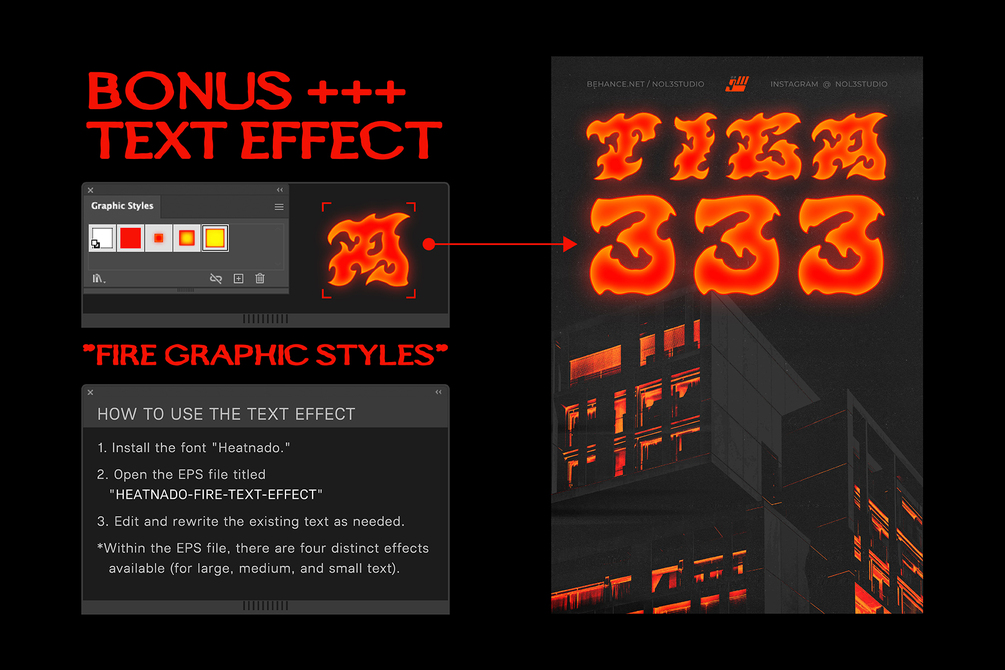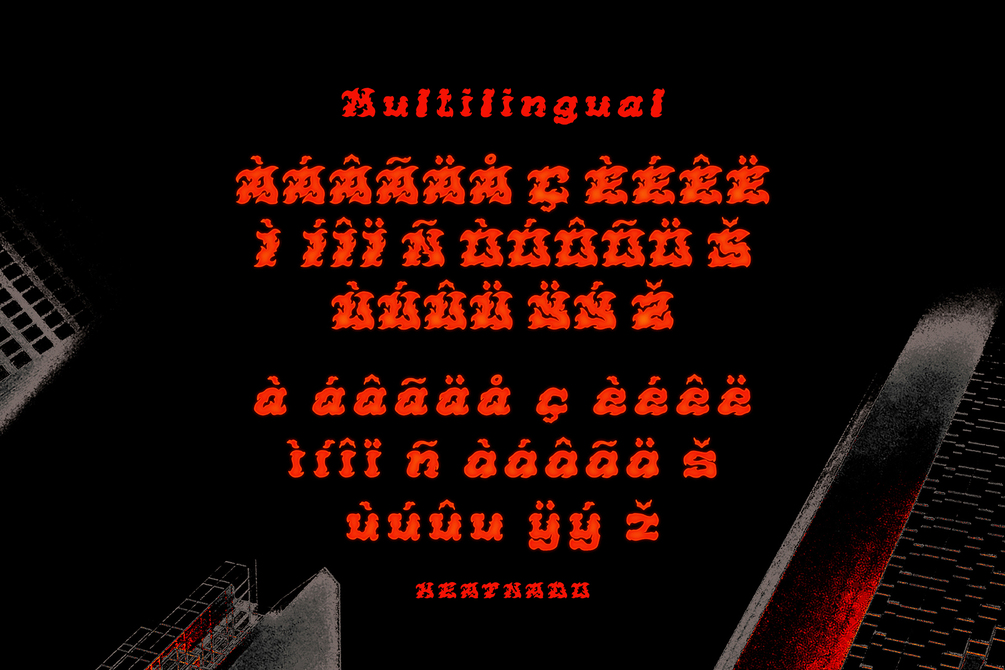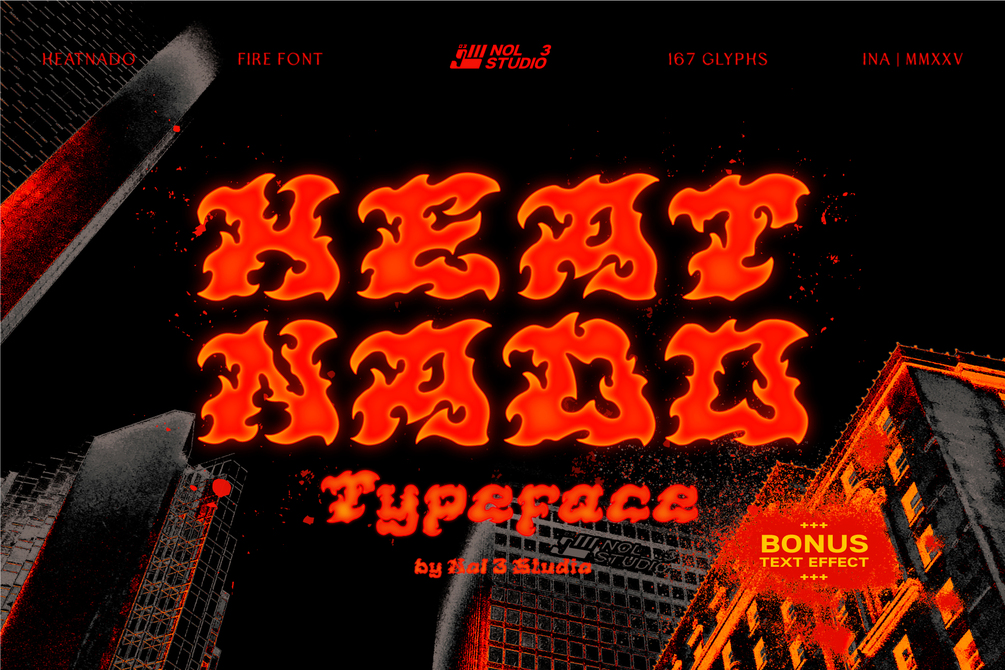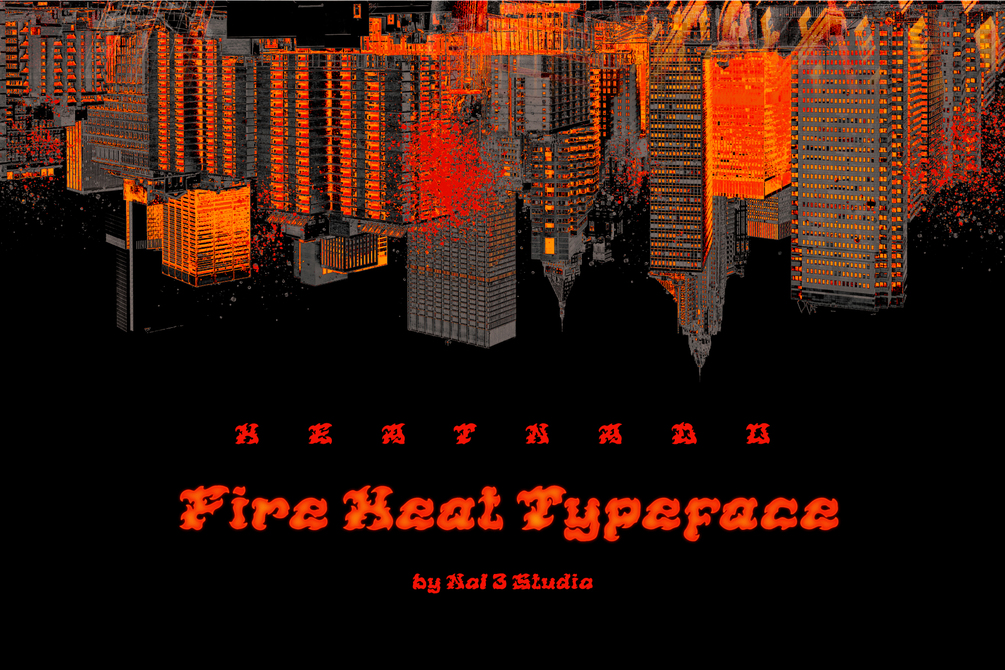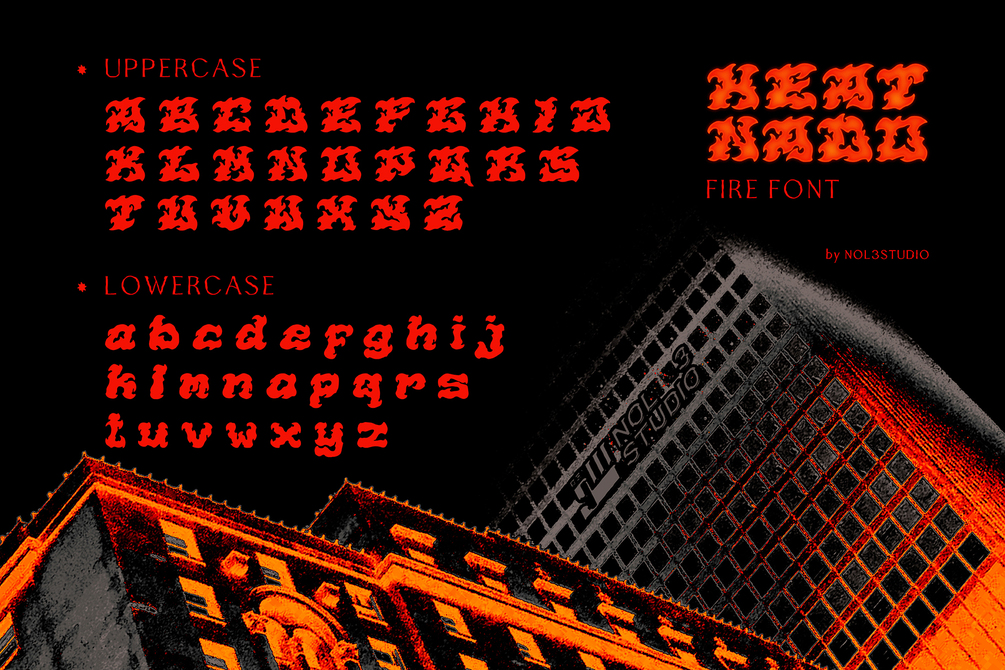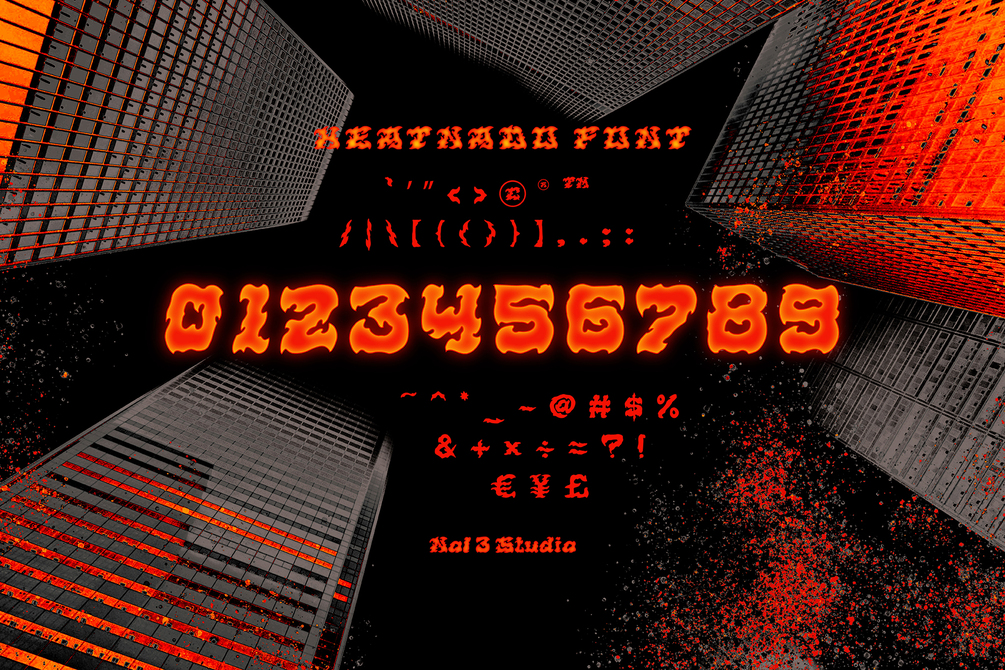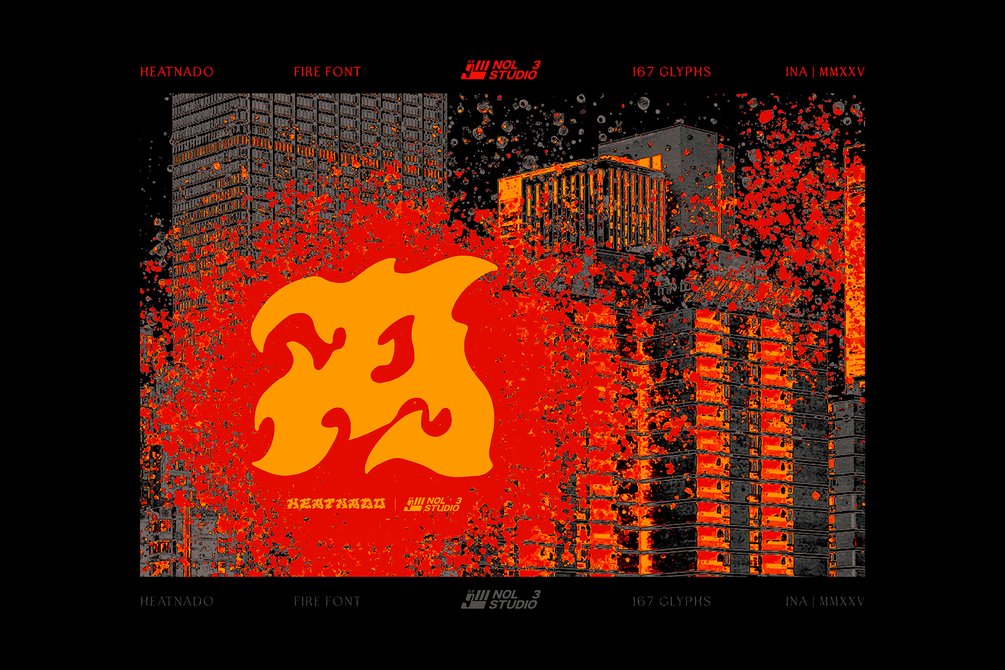
HEATNADO | Fire Font (Bonus Text Effect)
The Heatnado Font is a dynamic typeface inspired by fire, featuring hand-drawn lines that convey movement and energy. Its unique characters reflect the organic shapes of flames, making it ideal for bold projects. Additionally, the font includes bonus text effects that enhance its fiery aesthetic.
Key Features
- The Font Contains 167 Glyphs
- Uppercase & Lowercase
- Numbers & Punctuation
- Multilingual Support